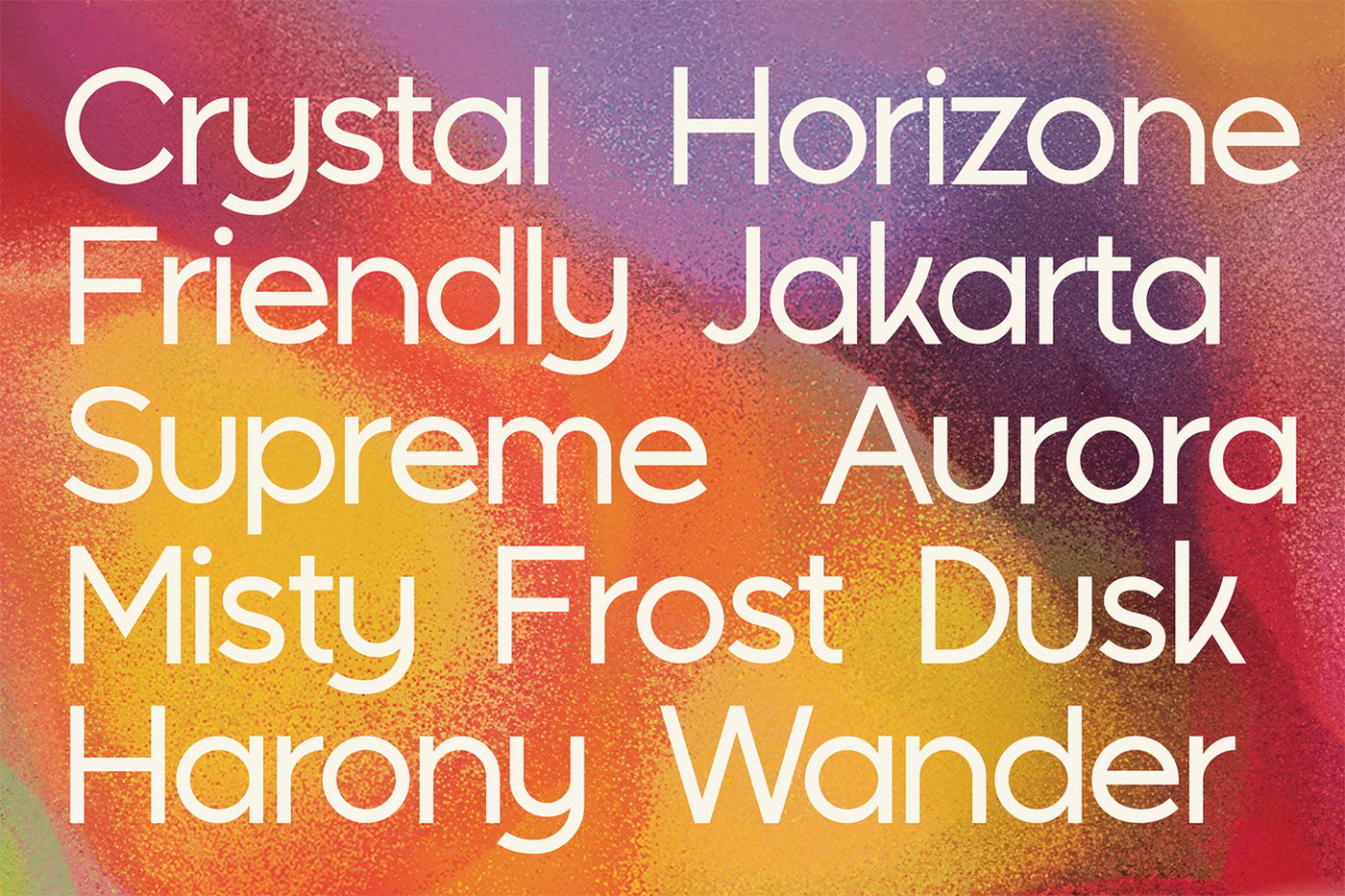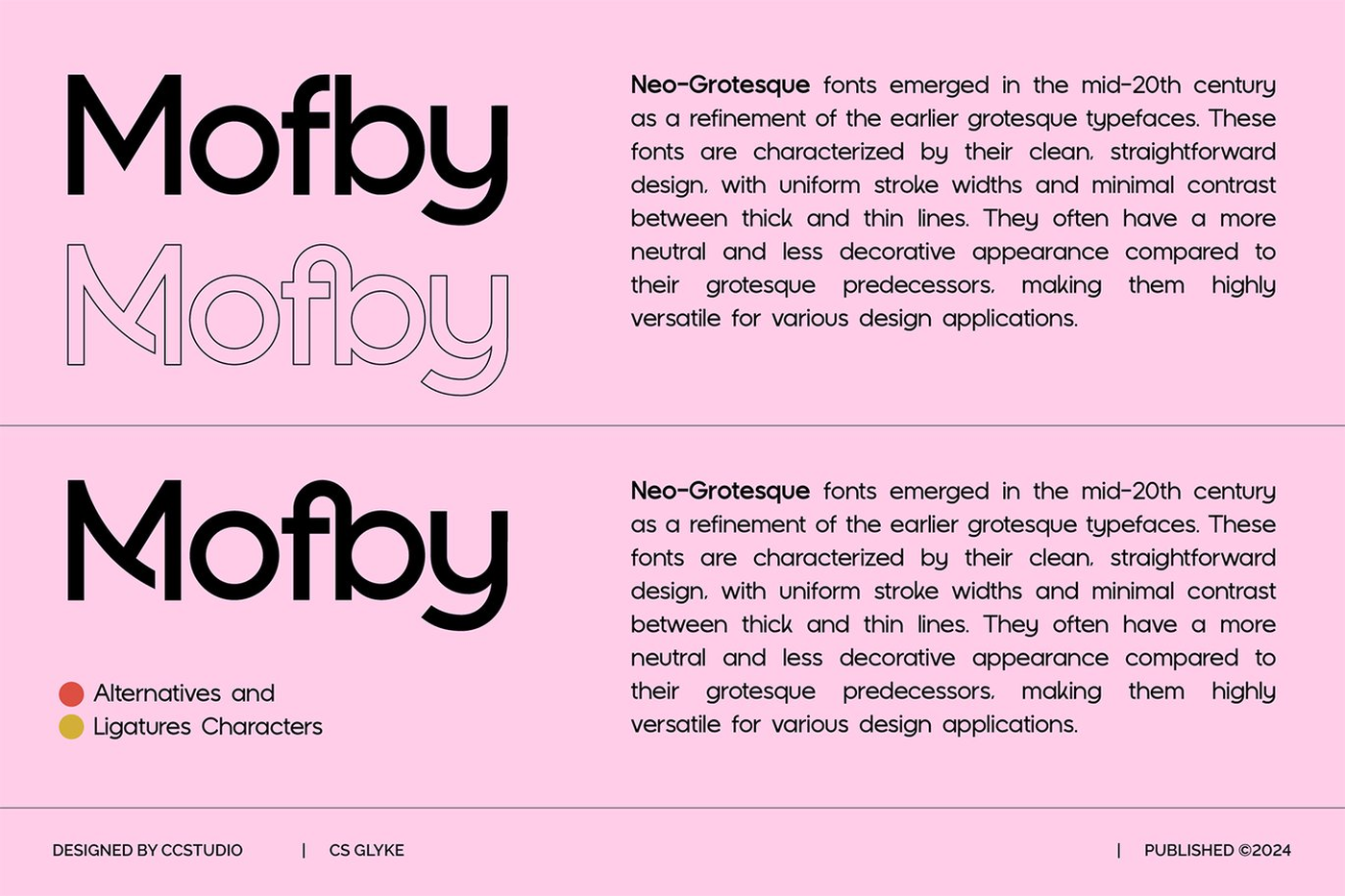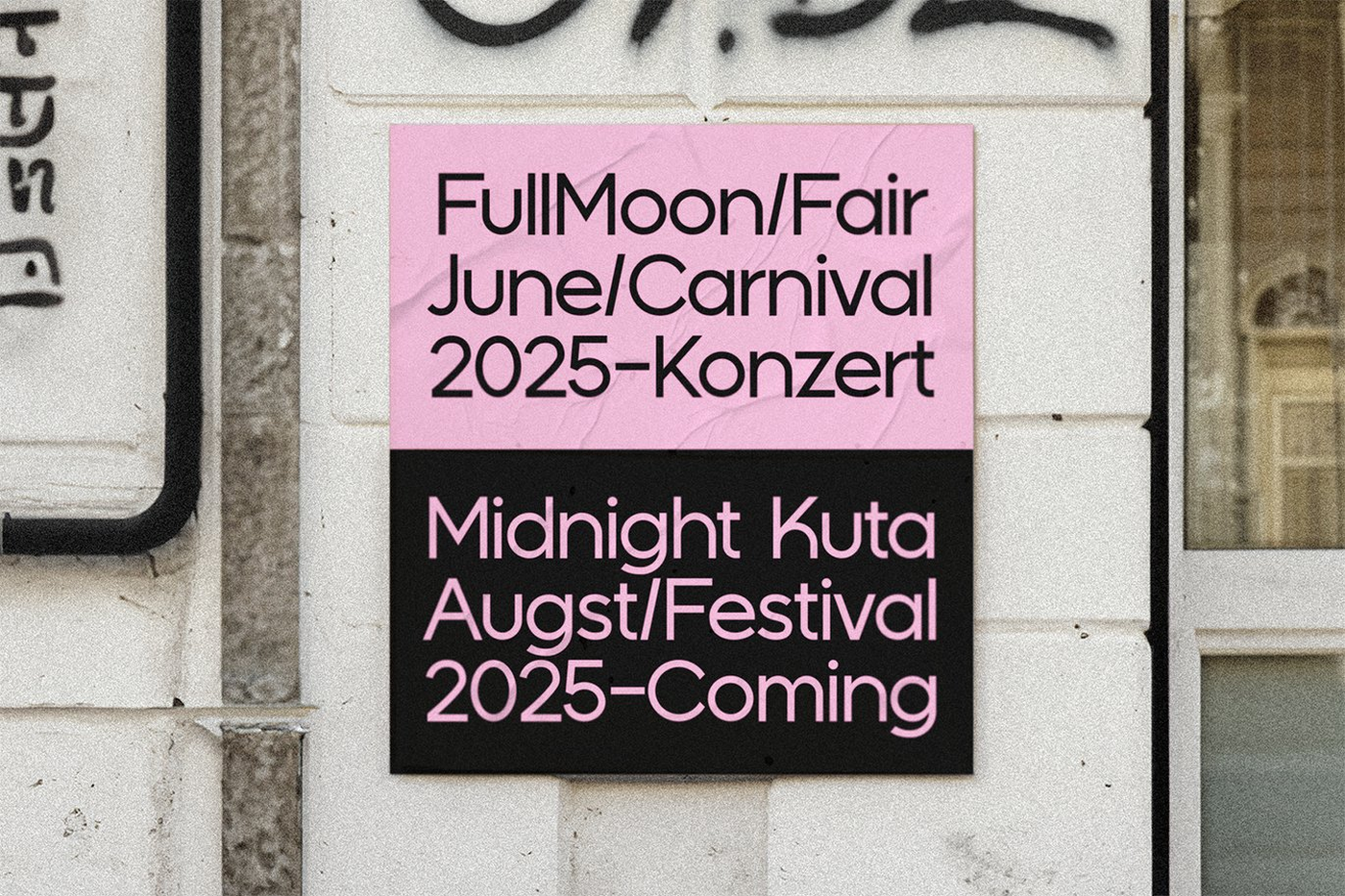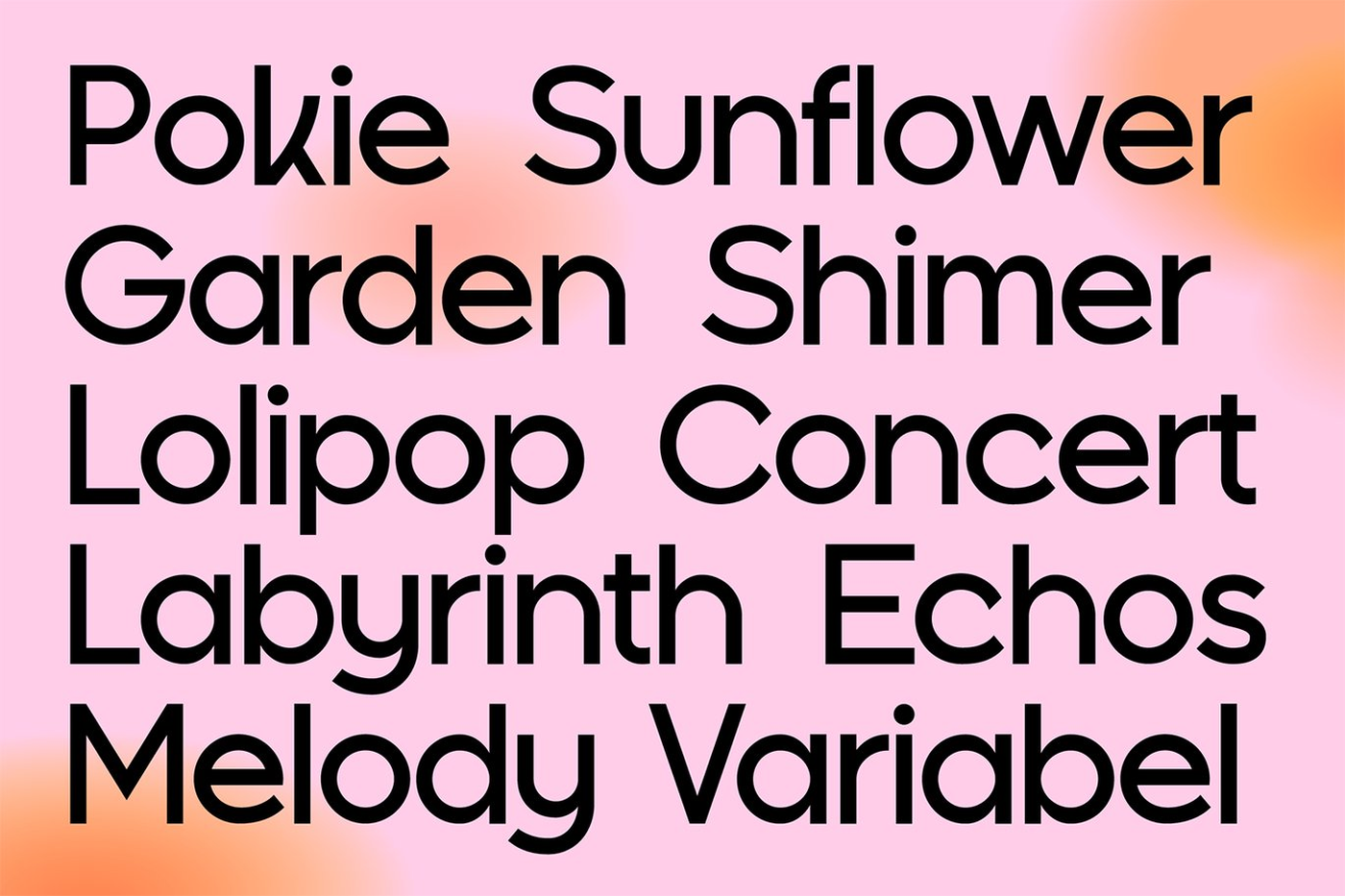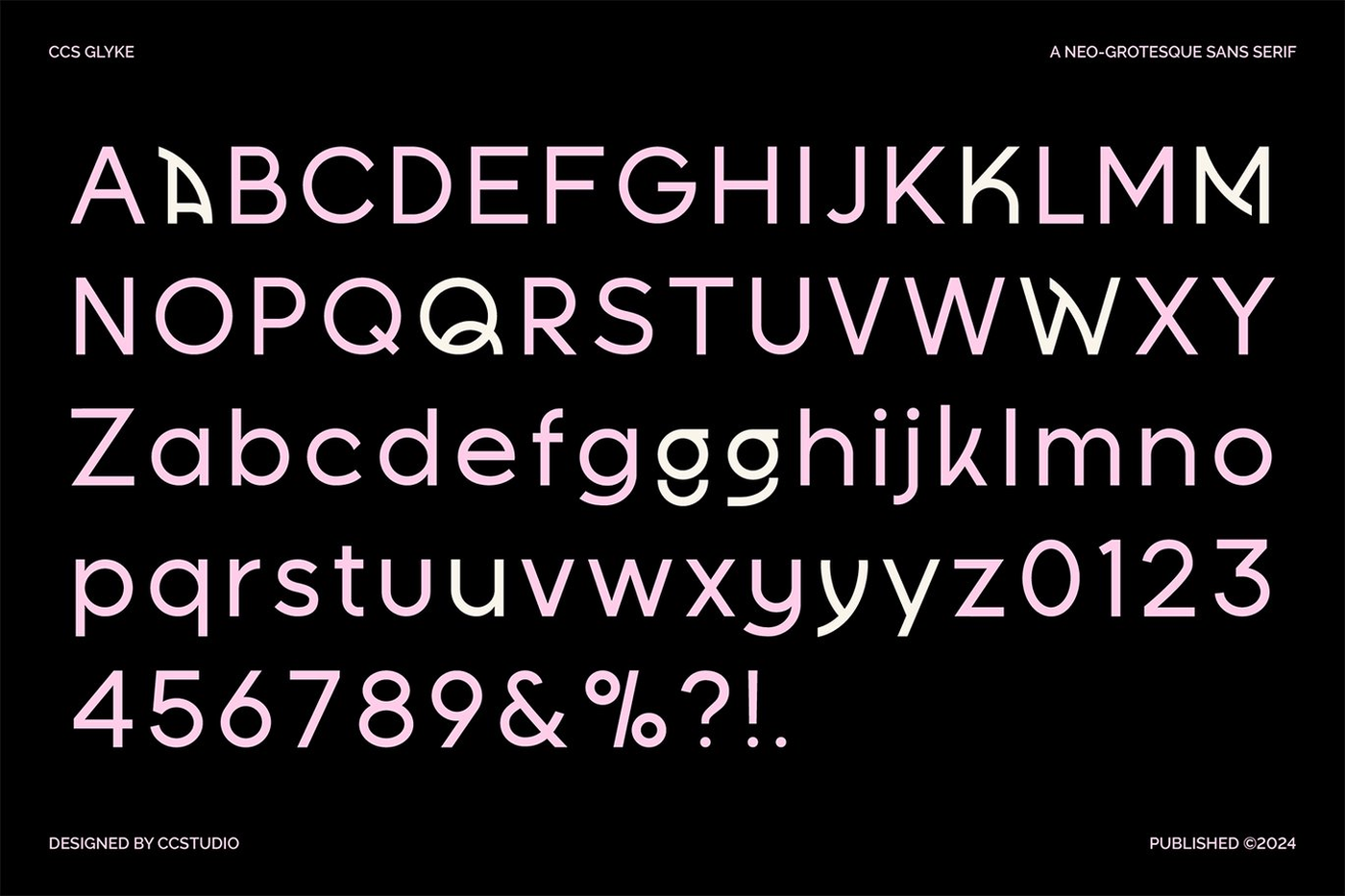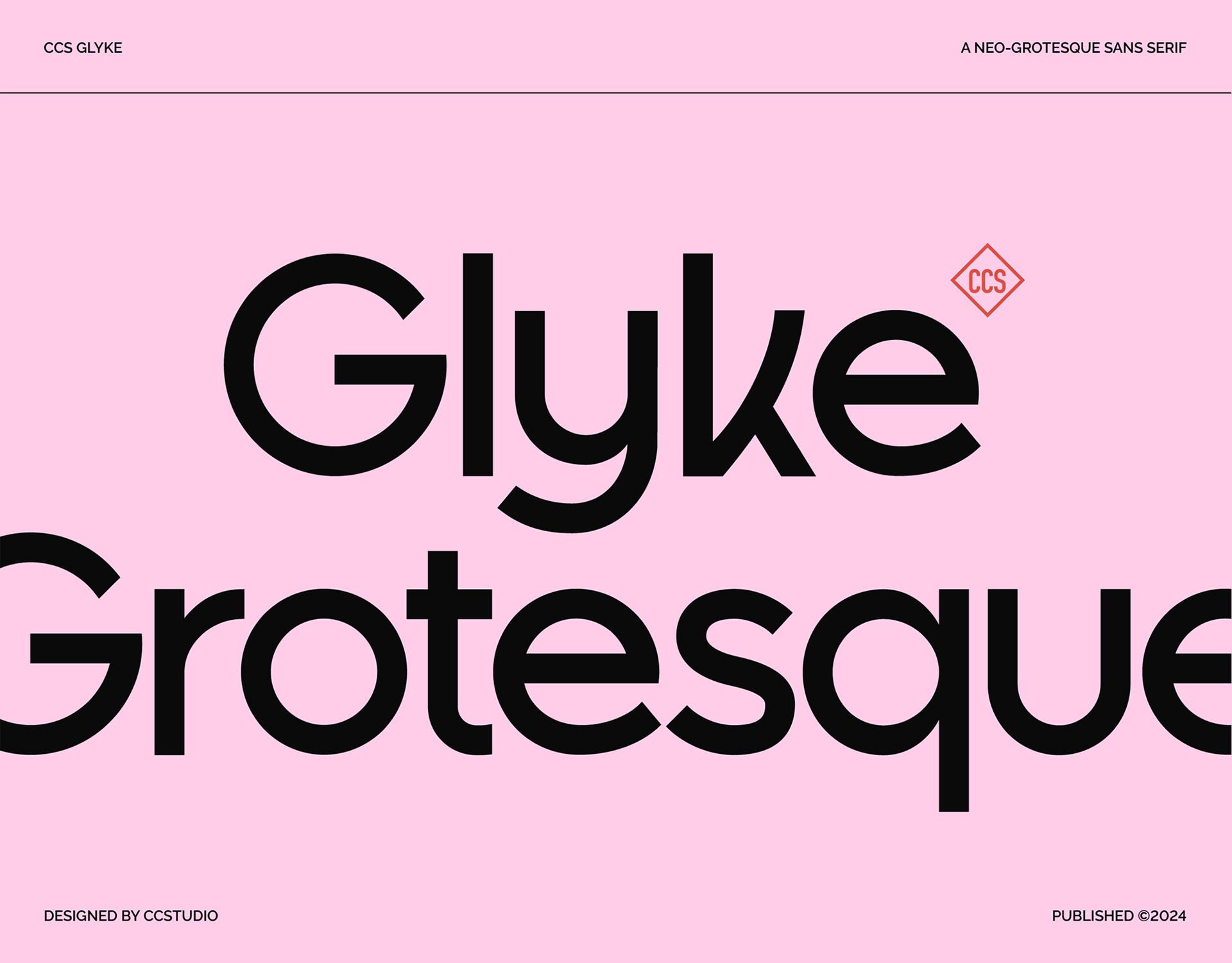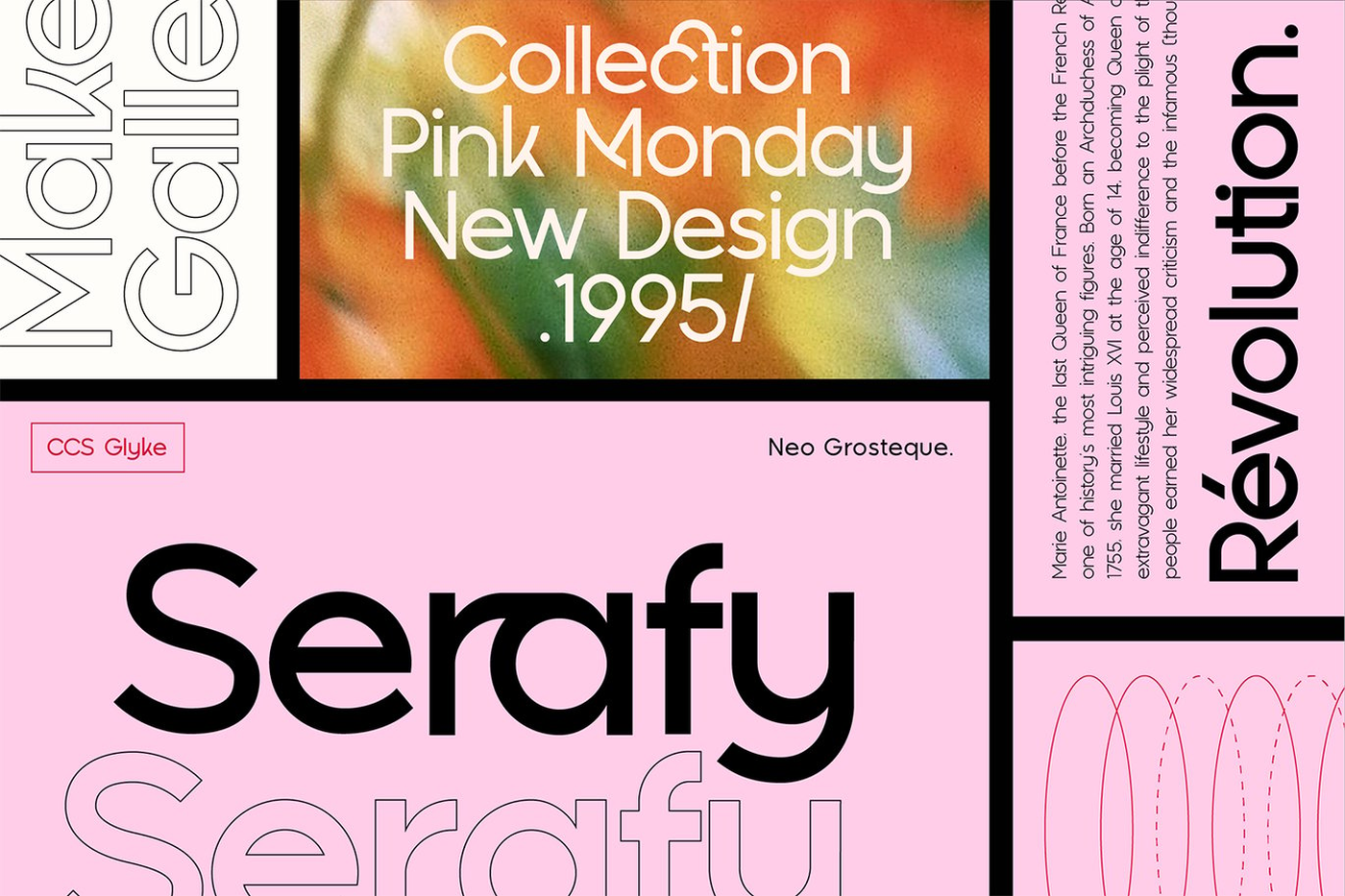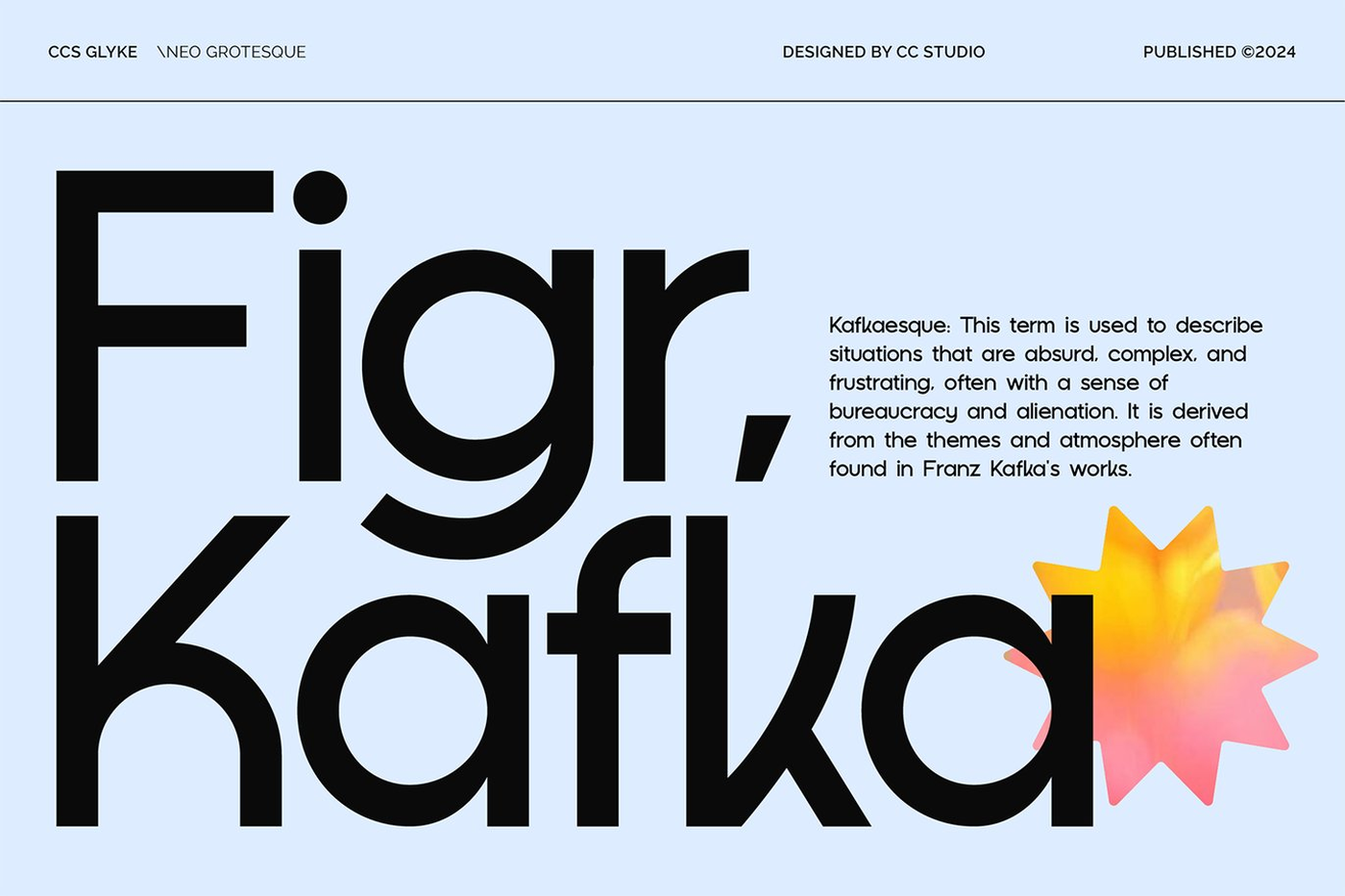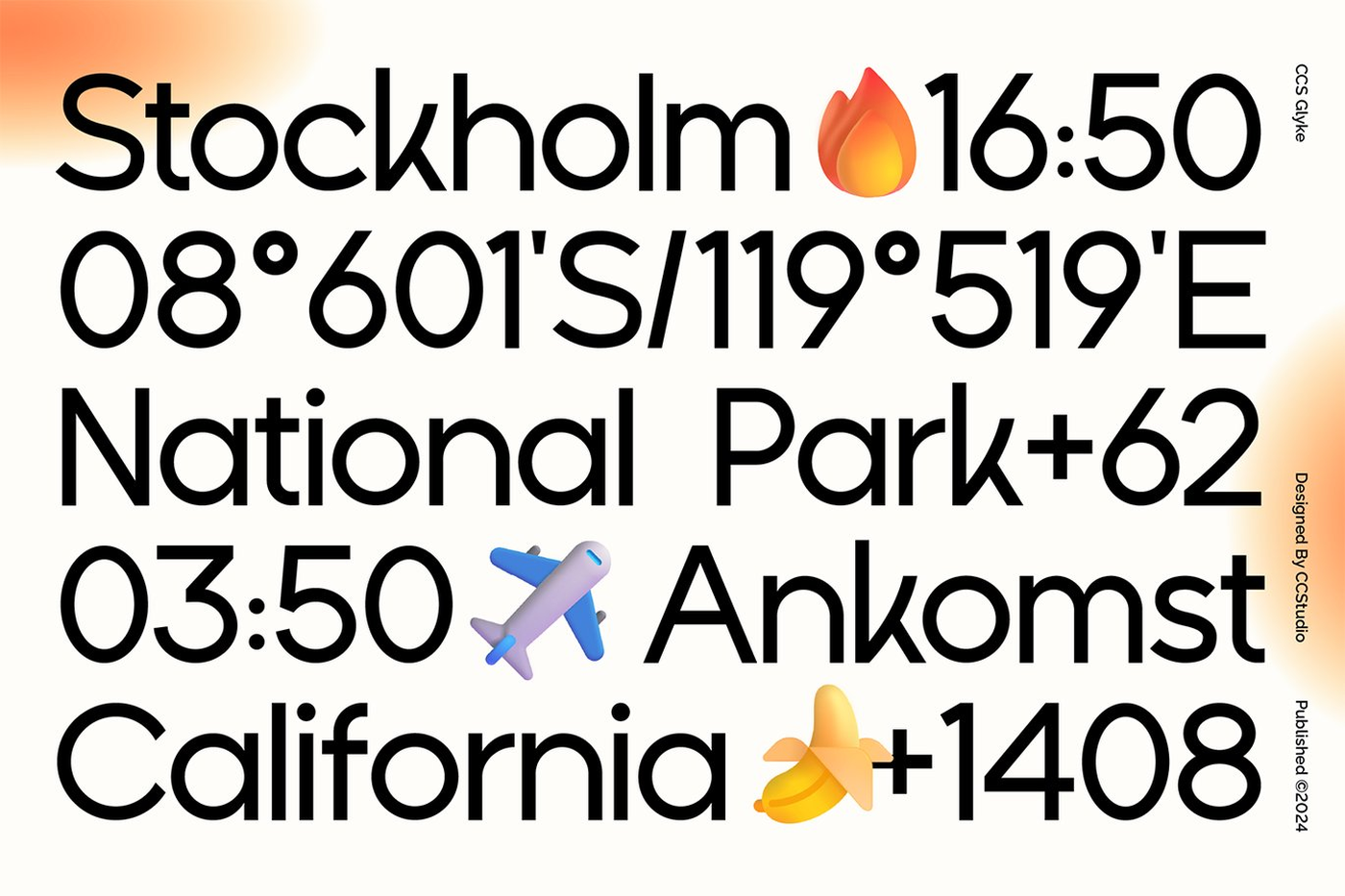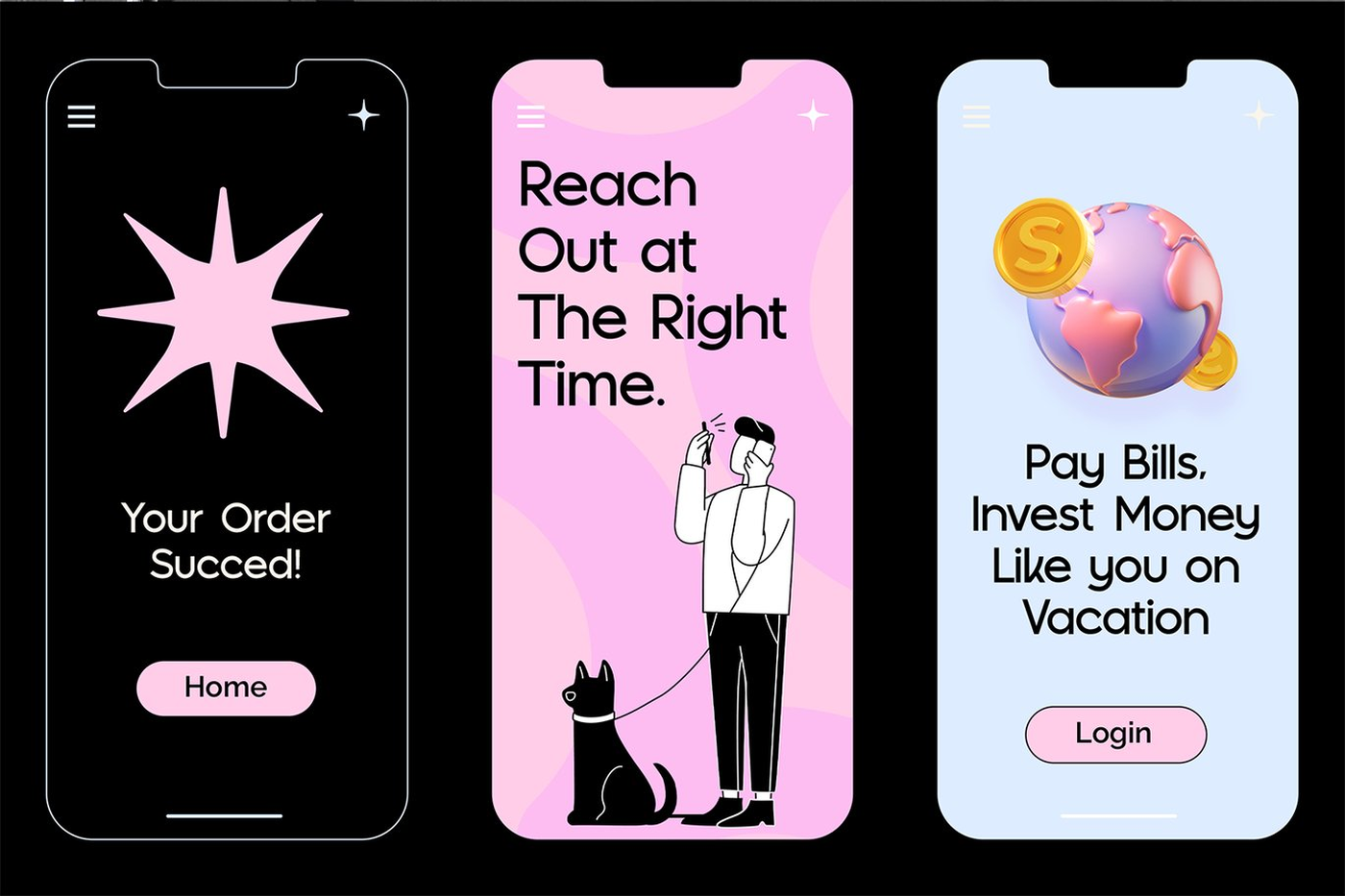
Glyke - Grotesque Sans Serif Font
Glyke is a geometric grotesk sans serif font that combines clean, modern lines with a warm and friendly feel. With an extensive selection of alternates and ligatures, Glyke is perfect for adding a unique touch to your titles and logos. Ideal for both display and text sizes, this font excels in branding, web design, magazine, and more. Elevate your projects with Glyke and experience the perfect blend of fun and sophistication.